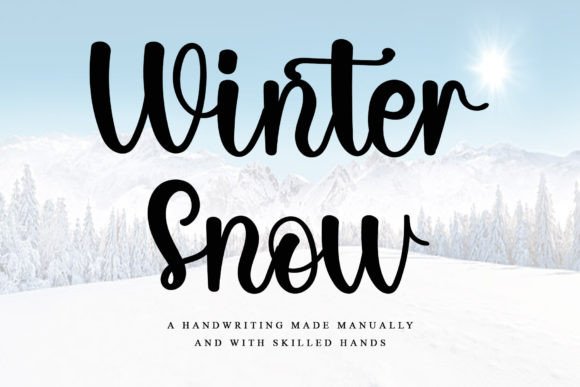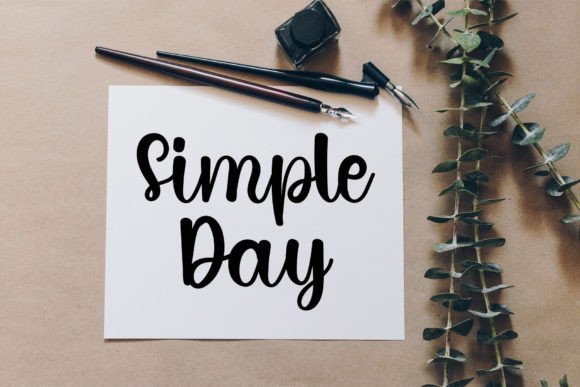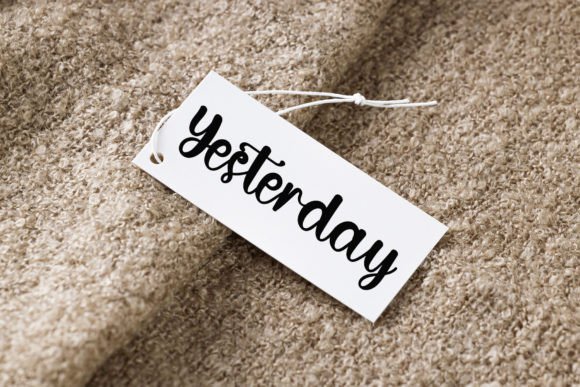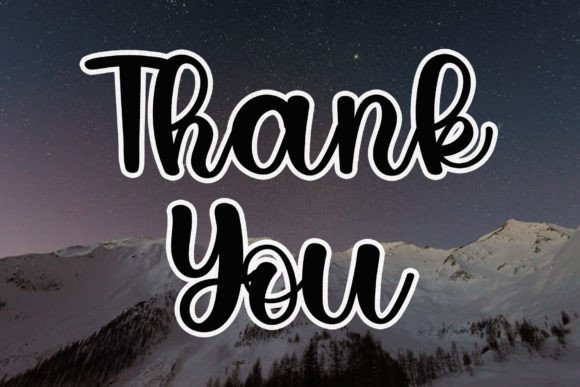
Introducing Football Font: The Elegant and Timeless Choice for Your Designs
Are you looking for a font that can add a touch of elegance and sophistication to your designs? Look no further than Football Font, a beautiful handwritten font that is perfect for a wide range of projects. With its incredibly distinct and timeless style, Football Font is sure to fall in love with its charm and versatility.
What is Football Font?
Football Font is a neat and beautiful handwritten font that is described by an elegant touch. It is a carefully crafted font that is designed to provide a unique and stylish look to your designs. The font is perfect for designers, crafters, and anyone who wants to add a personal touch to their projects.
Key Features of Football Font
- Elegant and Timeless Style: Football Font has an incredibly distinct and timeless style that is sure to make your designs stand out.
- Handwritten Look: The font has a beautiful handwritten look that adds a personal touch to your designs.
- Versatile: Football Font is perfect for a wide range of projects, from logos and branding to invitations and crafts.
- Easy to Read: The font is easy to read and understand, making it perfect for body text and headings.
Uses of Football Font
Football Font is a versatile font that can be used for a wide range of projects, including:
- Logos and Branding: Use Football Font to create a unique and stylish logo for your business or brand.
- Invitations and Events: Add a personal touch to your invitations and event materials with Football Font.
- Crafts and DIY Projects: Football Font is perfect for crafters and DIY enthusiasts who want to add a personal touch to their projects.
- Digital Designs: Use Football Font in your digital designs, such as social media graphics, blog posts, and website headers.
Benefits of Using Football Font
There are many benefits to using Football Font in your designs, including:
- Unique and Distinctive Look: Football Font provides a unique and distinctive look that will make your designs stand out.
- Elegant and Sophisticated: The font adds an elegant and sophisticated touch to your designs, making them perfect for a wide range of projects.
Tips for Using Football Font
Here are some tips for using Football Font in your designs:
- Use it as a Headline Font: Football Font is perfect for use as a headline font, adding a touch of elegance and sophistication to your designs.
- Pair it with Other Fonts: Experiment with pairing Football Font with other fonts to create a unique and stylish look.
- Use it for Body Text: Football Font is easy to read and can be used for body text, making it perfect for longer designs.
Football Font is a beautiful and elegant handwritten font that is perfect for a wide range of projects. With its incredibly distinct and timeless style, Football Font is sure to fall in love with its charm and versatility. Whether you’re a designer, crafter, or DIY enthusiast, Football Font is a great choice for adding a personal touch to your designs.